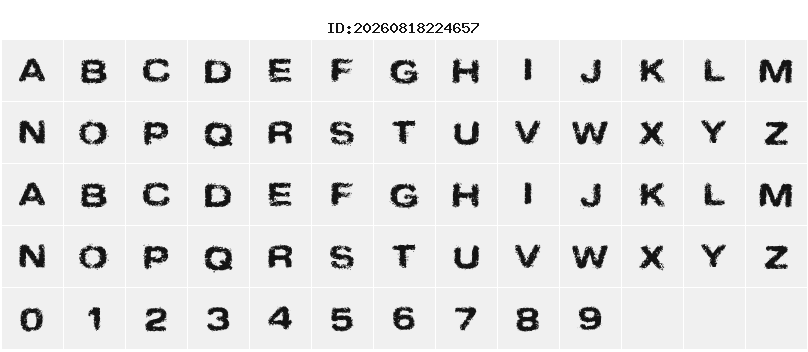
Sinder Preview
• Font Name: Sinder
• Full Font Name: Sinder Normal
• Manufacturer: The Fontry
About Sinder.ttf
Sinder.ttf is a modern, elegant sans-serif font designed for ultimate readability and visual harmony. Perfect for branding, headlines, web design, and print materials.